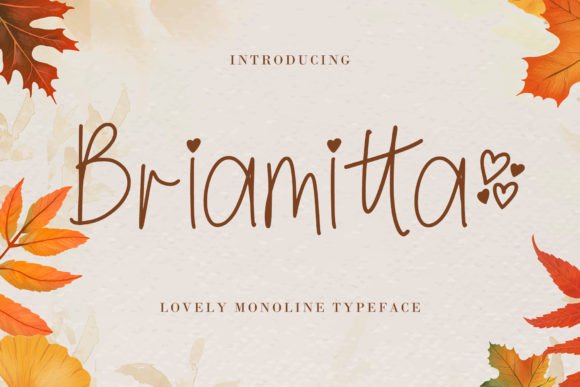
The Magic of Briamitta Font: Elevate Your Designs with a Cute and Playful Touch
I’ll never forget the moment I stumbled upon the perfect font for a children’s party invitation I was designing. I had a vision of something bright, fun, and utterly charming, but my go-to fonts just weren’t cutting it. That’s when I discovered Briamitta Font – a monoline handwritten font that instantly brought my design to life. If you’re a designer, crafter, or creative hobbyist looking for a font that adds a playful touch to your work, you’re in the right place!
An Honest Review of Briamitta Font
• ✨ Cute and Playful: Briamitta Font is perfect for children’s themed designs, with a charm that instantly appeals to kids and adults alike.
• ✅ Versatile: This font works beautifully with bright and pastel colors, making it ideal for a wide range of creative projects.
• 💫 Elegant yet Informal: The monoline handwritten style strikes the perfect balance between elegance and playfulness.
While Briamitta Font is incredibly versatile, there are a few things to keep in mind:
• ⚠️ Legibility at Small Sizes: Like many script fonts, Briamitta can be a bit tricky to read at very small sizes. It’s best used at larger sizes where its charm can shine.
• 🤔 Pairing with Other Fonts: While Briamitta is stunning on its own, it can be a bit challenging to pair with other fonts. Stick to simple, clean fonts to create a harmonious design.
4. Experiment with OpenType features like ligatures and stylistic alternates to add personality to your text.
The Story Behind Briamitta Font
Briamitta Font was inspired by the creator’s love for children’s illustrations and handwriting. The designer aimed to create a font that captures the whimsy and playfulness of childhood, making it perfect for a wide range of creative projects.
Font Name Briamitta Font
Author AEN Creative Studio
What is Briamitta Font best used for? Briamitta Font is ideal for children’s themed designs, party invitations, educational materials, and any project that requires a playful touch.
Is Briamitta Font available in different styles? Currently, Briamitta Font is available in its standard monoline handwritten style. Keep an eye out for future updates or alternative styles from the creator.